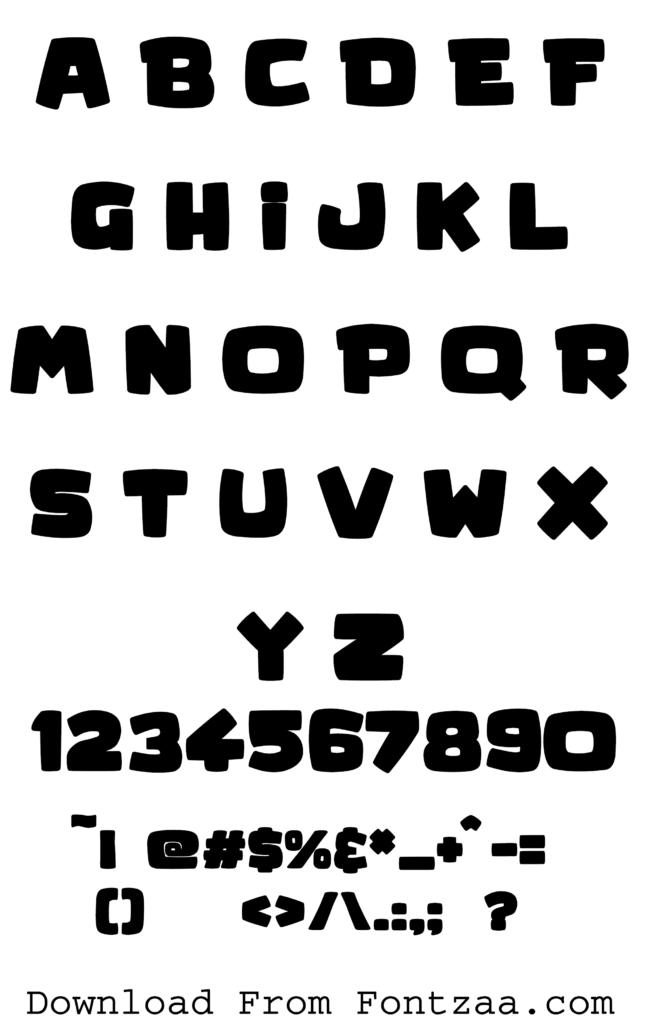
Kid Games Font is a playful, high-energy typeface meticulously designed to capture the spirit of imaginative kids. The font is oriented at cheerful design as it captures the essence of playfulness underlining childhood. Hence, it will be ideal for various creative and kids’ projects. The Kid Games Font is perfect for any project that attempts to capture the excitement and whimsy part of childhood with a mix of happy looks, readability, and adaptability.
Although created in a playful style, Kid Games Font is highly legible. These clear and well-defined letterforms would go a bit further, ensuring that even text within a more elaborate context is read very quickly. Appropriate, whether applied in the large headlines or the smaller text, Kid Games Font balances visual impact and readability to perfection for its most expansive use.
Kid Games Font Family
- Kid Games Regular
Also, it is quite versatile—Kid Games Font can host a lot of different characters and symbols, which makes this font relevant in probably many projects of different natures and languages. As a result, the font is also versatile in its use in that it works with most design software.